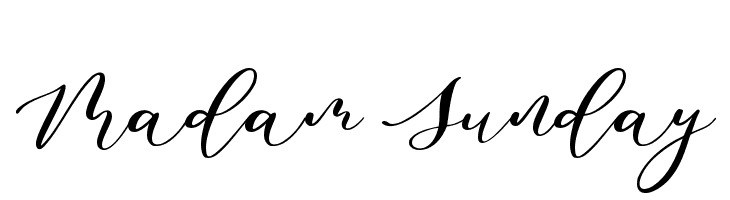
A romantic, cursive font with flowing, elegant strokes and playful flourishes.
A bold, expressive script font with fluid, brush-like strokes.
An elegant script font with flowing, interconnected letters and graceful swashes.
A bold, flowing script font with elegant, swirling strokes and high contrast.
An elegant and flowing script font with cursive, connected letterforms.
A bold, expressive handwritten font with dynamic slanted strokes.
A bold, expressive brush-style font with dynamic, sweeping curves.
A dynamic and elegant script font with flowing, interconnected letters.
A bold, handwritten font with a dynamic and expressive style.
A romantic and elegant script font with flowing, handwritten style.